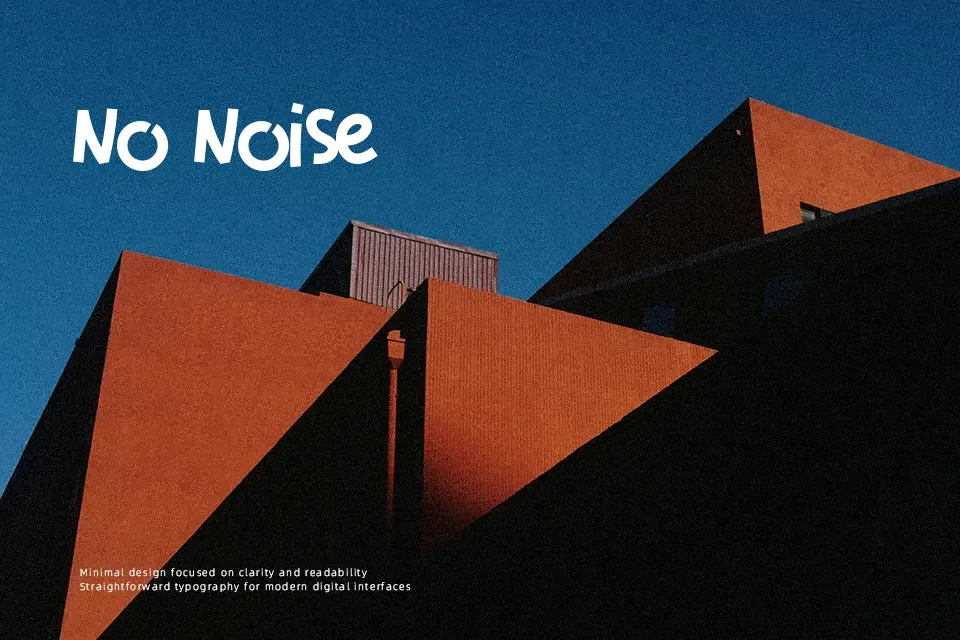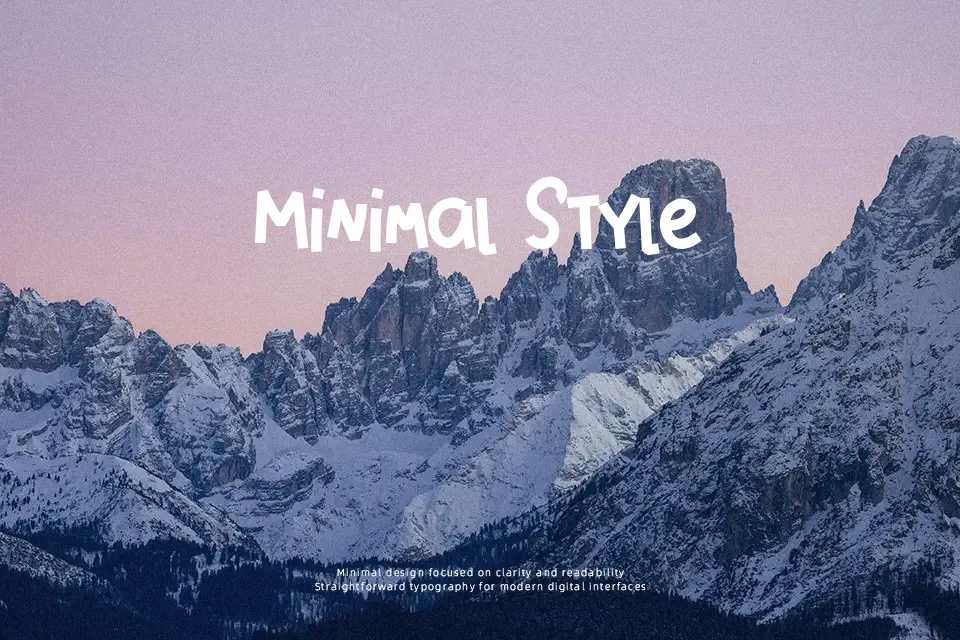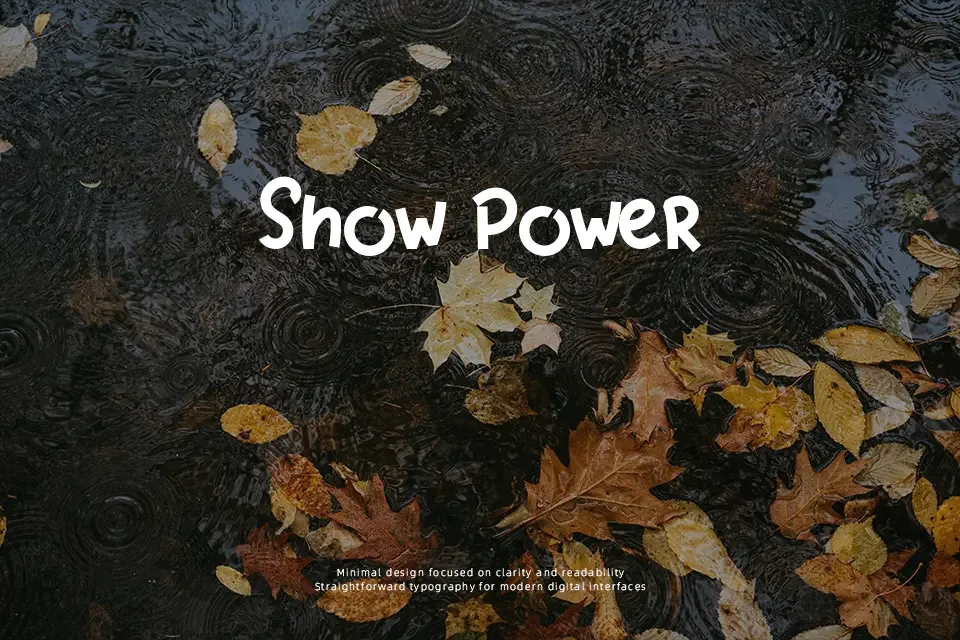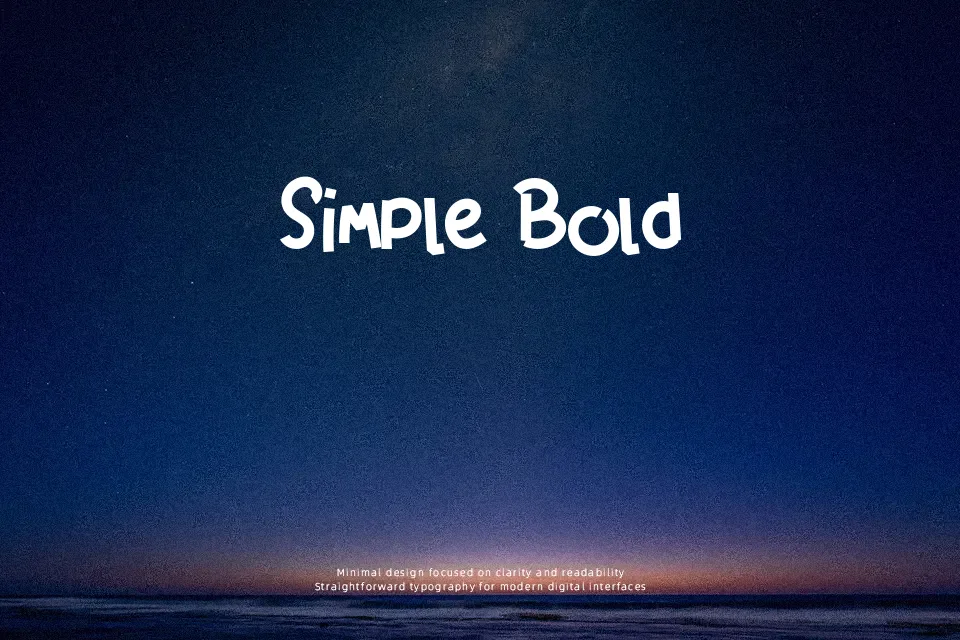
Qigome Monoline Font
The Qigome Monoline Font features a wonderfully consistent stroke thickness that immediately establishes a friendly and approachable aesthetic. Its letterforms display smooth curves and open spacing, ensuring that the playful cartoon structure remains highly legible in medium to large applications. The uniform weight provides a clean visual rhythm across both uppercase and lowercase characters, making it easy to create balanced compositions. This typeface performs exceptionally well in casual branding, children’s design, and cheerful packaging. However, the uniform stroke width and decorative nature reduce readability in extended paragraphs, meaning it is better suited for impactful headlines rather than dense body copy.
Best For: children’s book covers, casual product packaging, cheerful social media graphics, toy brand logos
Not Ideal For: dense paragraph text, corporate financial reports, small interface labels, spreadsheet data
Perfect for kids, logo, and packaging, with a clean and cartoon style.